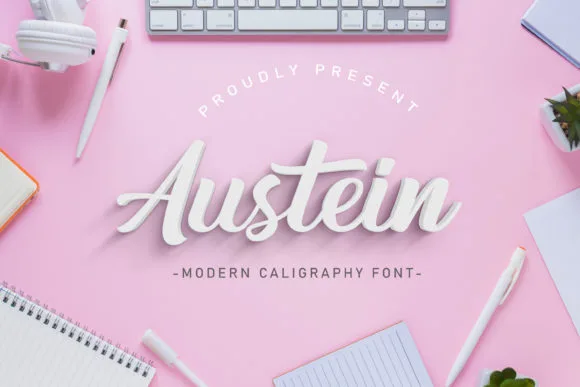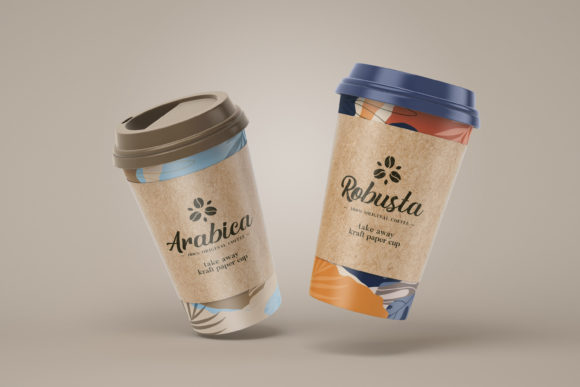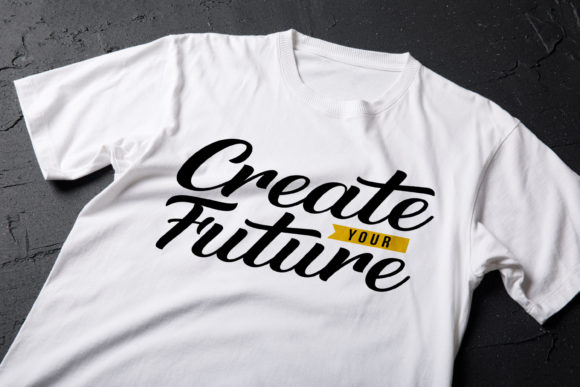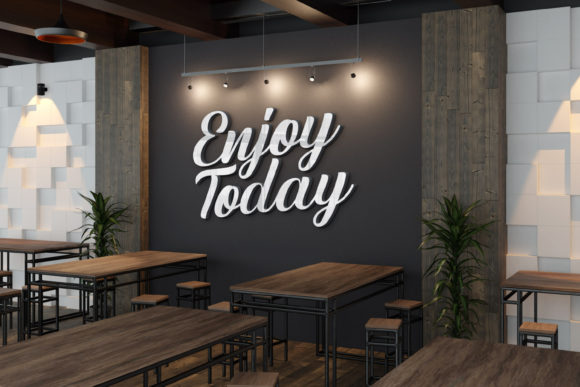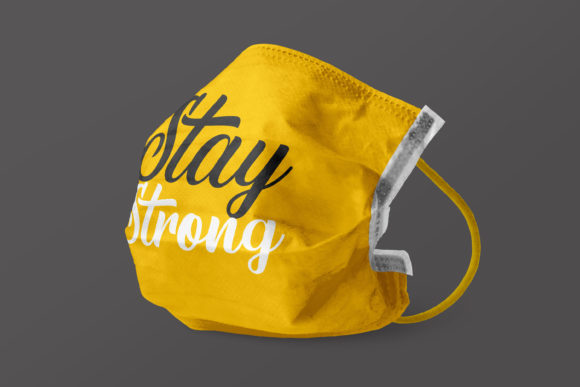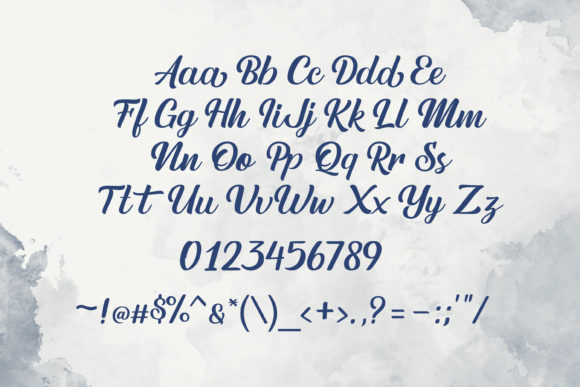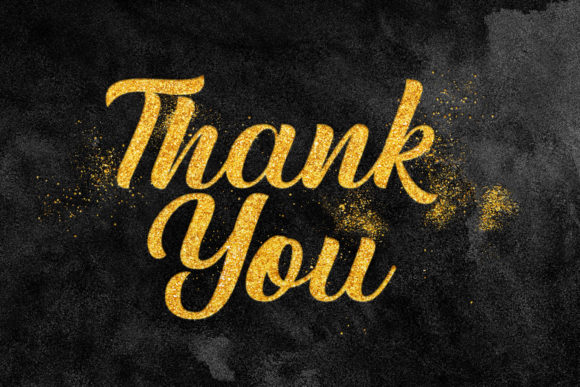
Austein Font
About Austein Font
Austein is a beautiful script font, carefully handcrafted to become a true favorite. Its casual charm makes it appear wonderfully down-to-earth, readable and, ultimately, incredibly versatile.